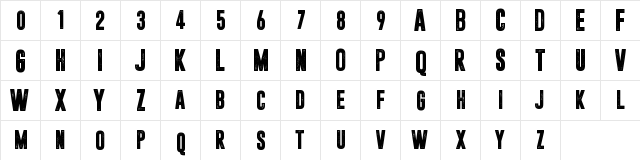
Dreamwalker Regular
| Designer | The Branded Quotes |
Design Context for Dreamwalker Typeface
Dreamwalker takes a measured approach to typography — its balanced proportions and neutral character make it a reliable workhorse for both digital and print work.
Pro Tip: Use Dreamwalker in both headline and body roles to test its range before committing to a single application.